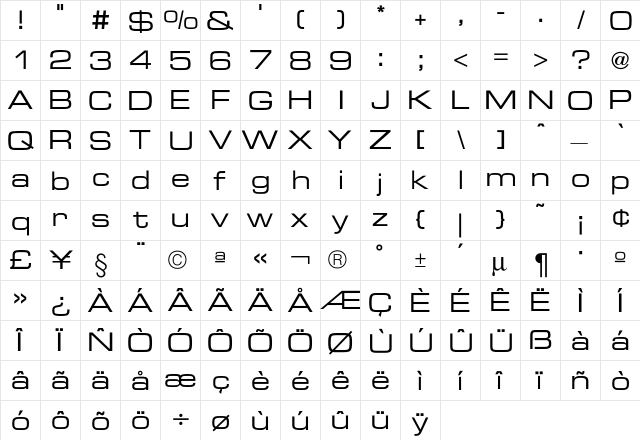
Euro TechnicExt Font Preview
Euro TechnicExt
Design Context for Euro Typeface
Euro channels digital-age aesthetics through its sharp, structured letterforms — ideal for brands that want to signal innovation.
Pro Tip: Try Euro with generous letter-spacing in UI labels and navigation — the geometric forms benefit from room to breathe.